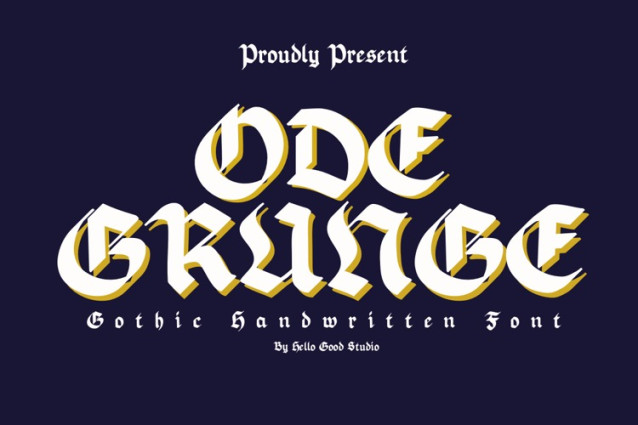
Odegrunge Font
Odegrunge Font is a powerful display font that strikes a perfect balance between traditional Blackletter (Gothic) roots and a gritty, modern handwritten aesthetic. Designed by Studio Hello Good, this typeface is crafted for creators who want to make a loud, unmistakable statement.